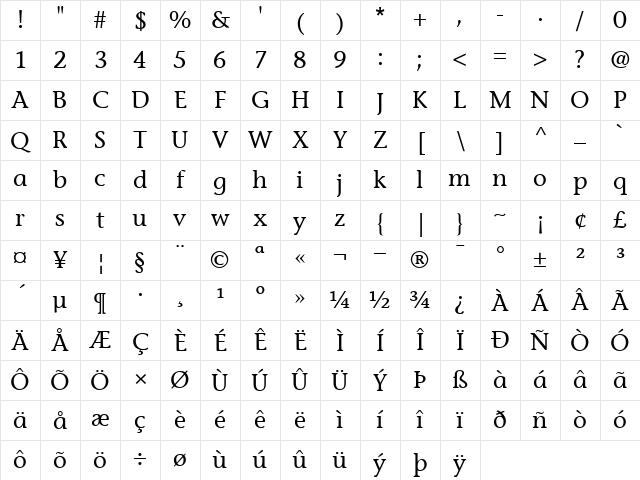
ITCStoneInformal Roman
ITCStoneInformal Family
Design Context for ITCStoneInformal
ITCStoneInformal is a composed and adaptable typeface that performs quietly and consistently across a wide range of design contexts.